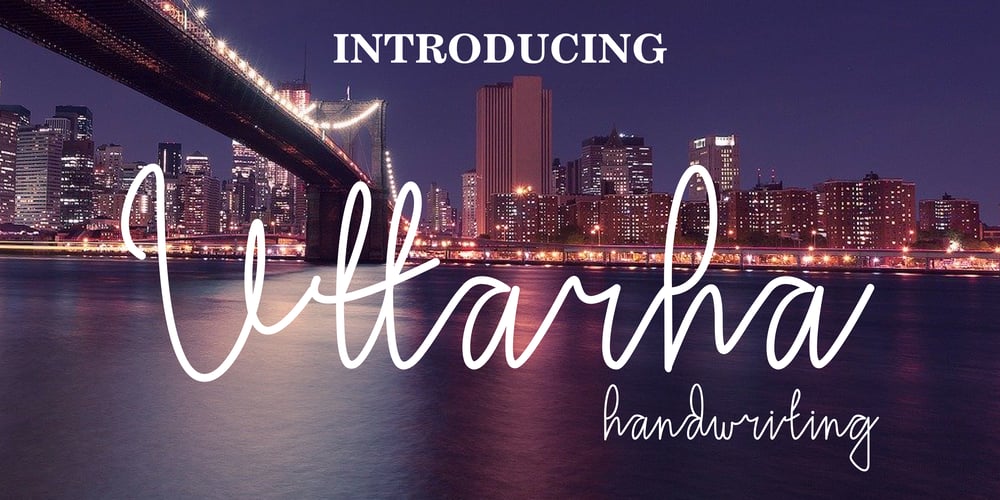
Uttarha Handwriting Font Family was designed by Gais Zaelani and published by JprintStudio. Uttarha Handwriting contains 3 styles and family package options. Uttarha is a cute and casual handwritten font with an incredibly friendly feel. It features gorgeous swashes and ligatures that make this script incredibly versatile. Whether you’re looking for fonts for Instagram or calligraphy scripts for DIY projects, Uttarha will turn any creative idea into a true piece of art!Ready to use for projects, texts, letters, or whatever you want!